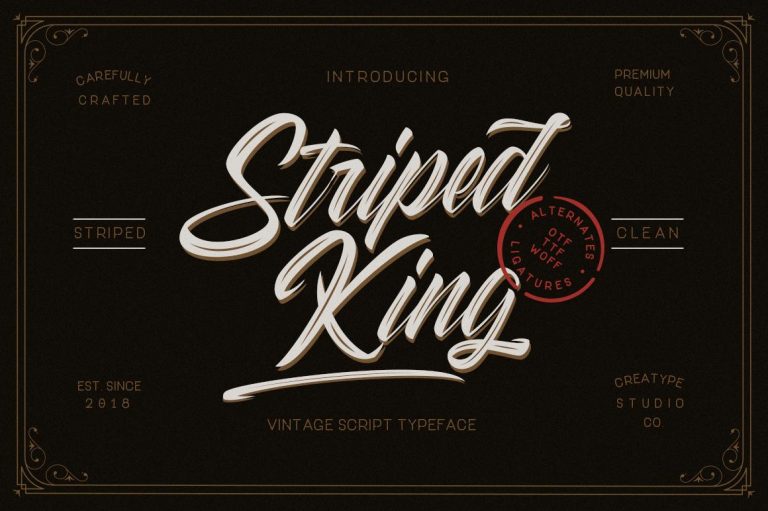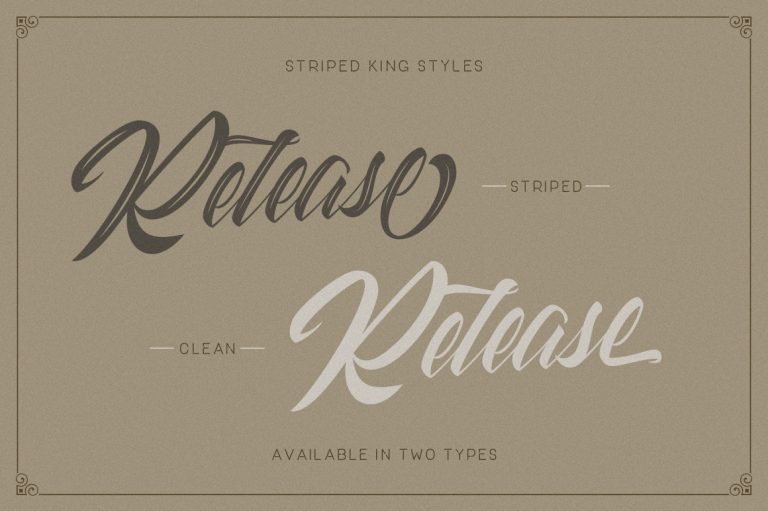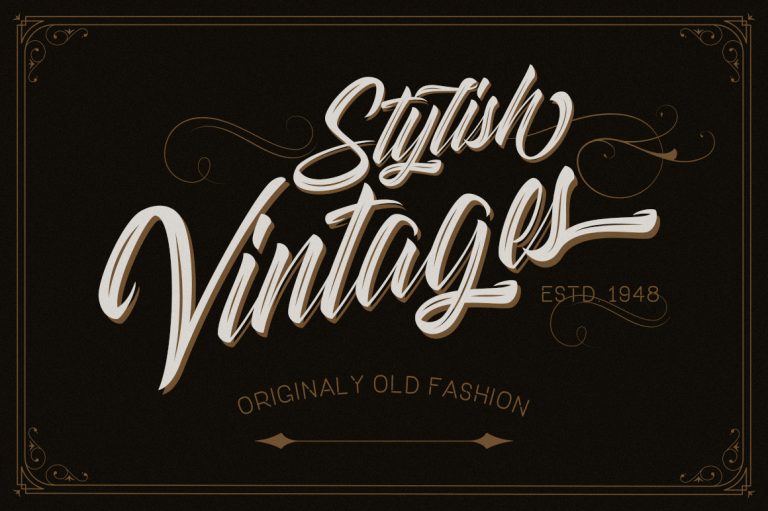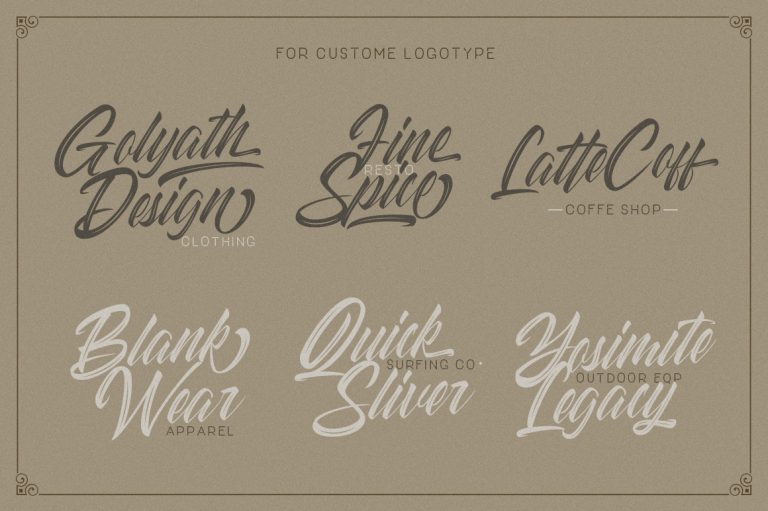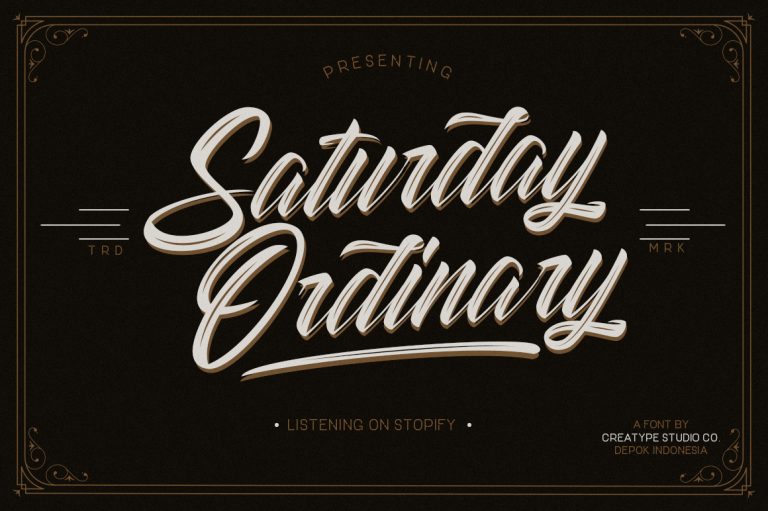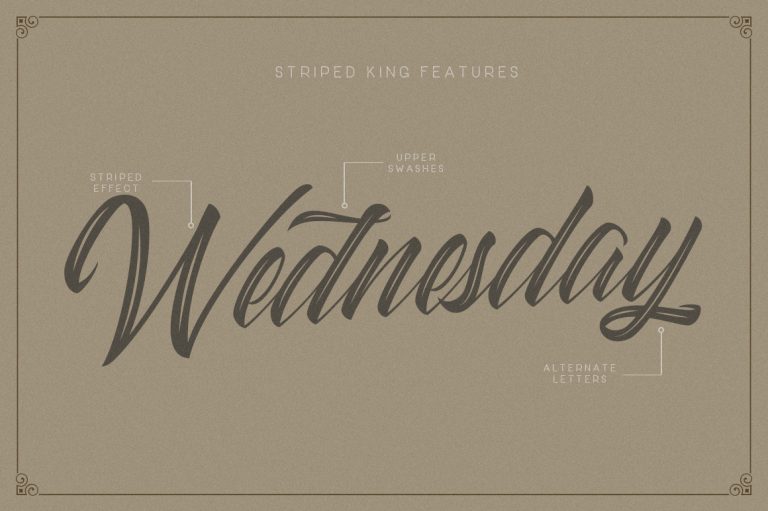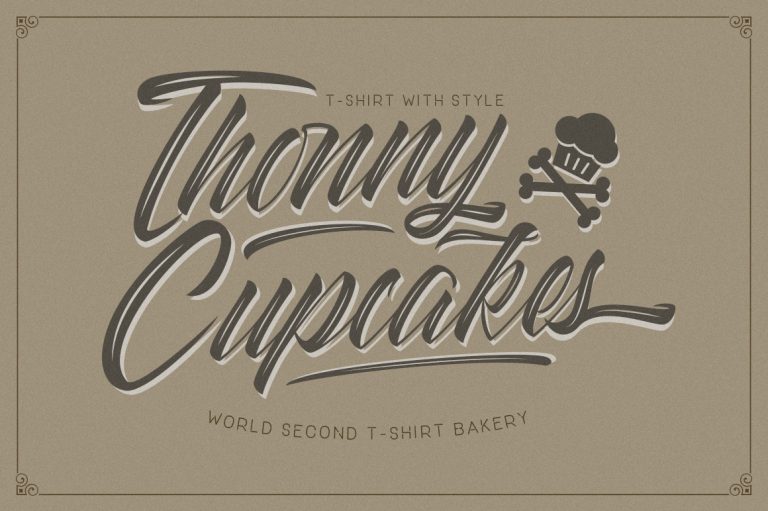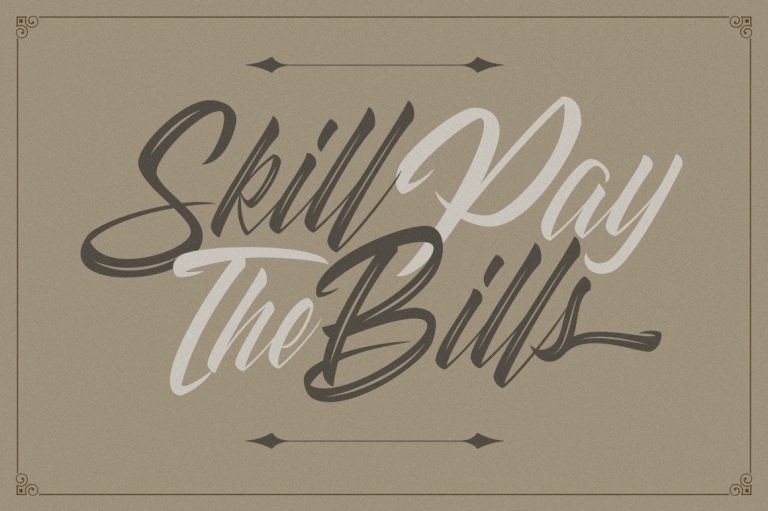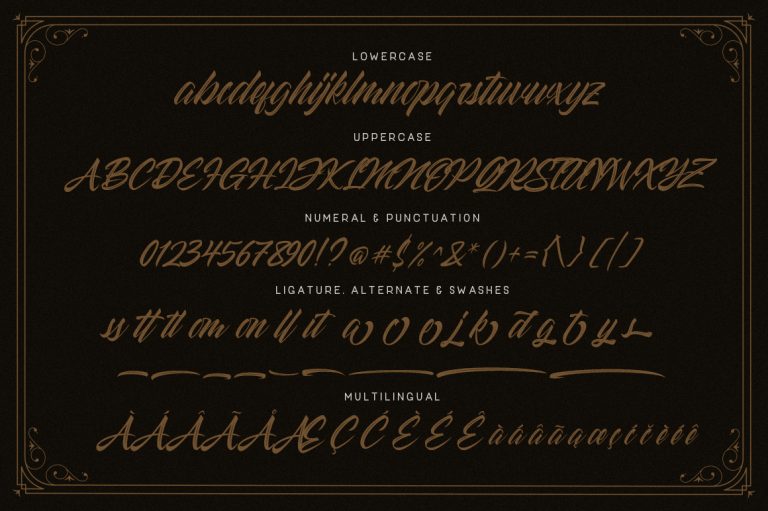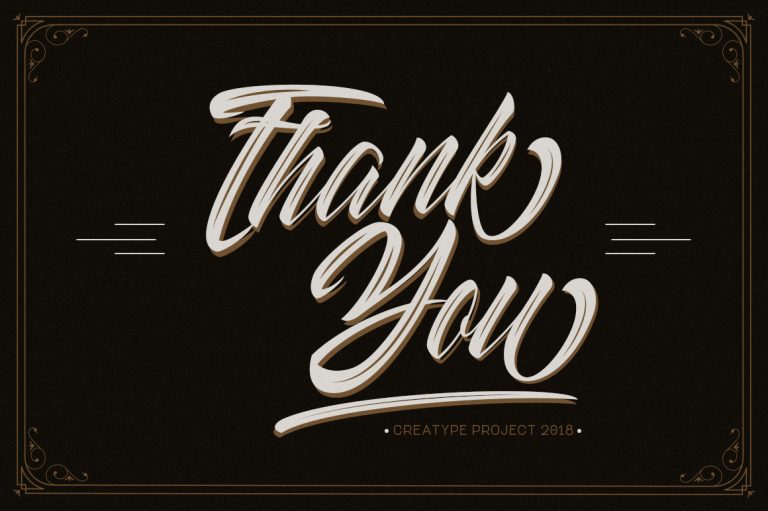
Striped King Vintage Script
Hello! Striped King is a modern, vintage-inspired font that looks great in a wide range of projects. This gives projects an elegant and immensely stylish appeal.
Striped King would perfect for photography, watermark, social media posts, advertisements, logos & branding, invitation, product designs, label, stationery, wedding designs, product packaging, special events or anything that need handwriting taste.
- More than 500 of glyphs
- Ton of glyphs (include Uppercase, Lowercase, Numerals & Punctuations, Ligature, Swashes)
- Ligature & Stylistic alternate
- Fonts include multilingual support for; Afrikaans, Albanian, Catalan, Danish, Dutch, English, French, Hungarian, Icelandic, Italian, Spanish, Portuguese, German, Swedish, Norweigen, Polish, Indonesian, Turkish, Zulu